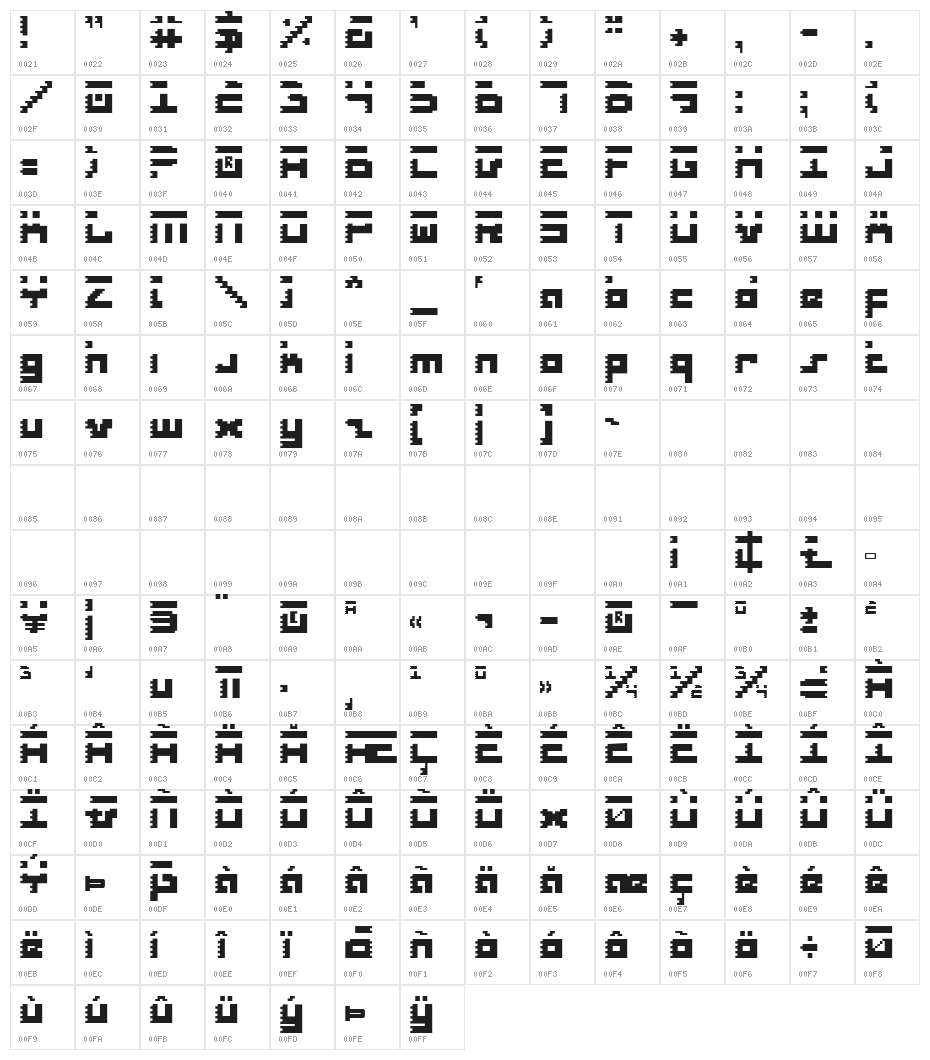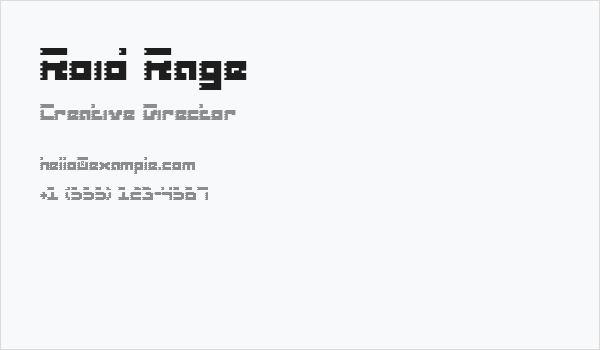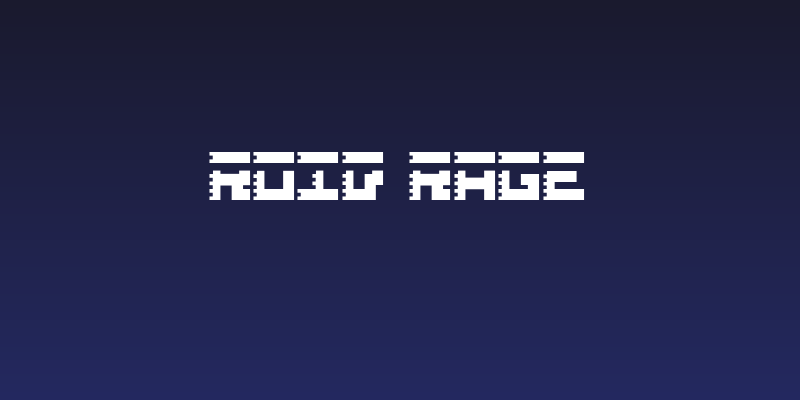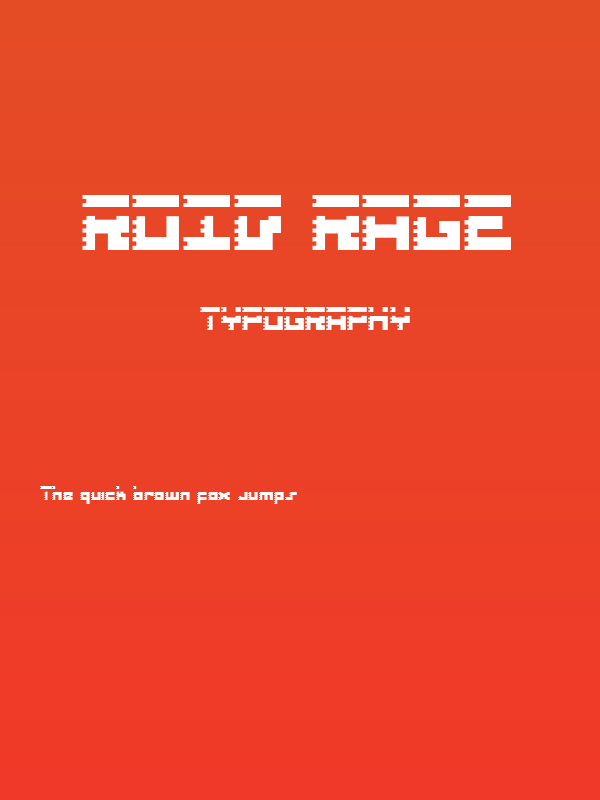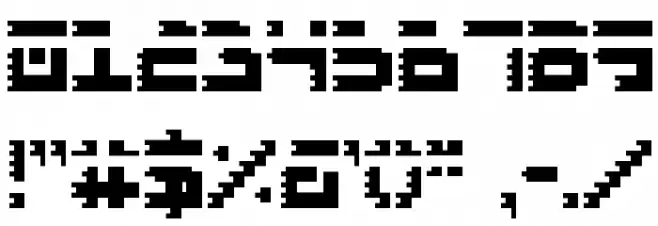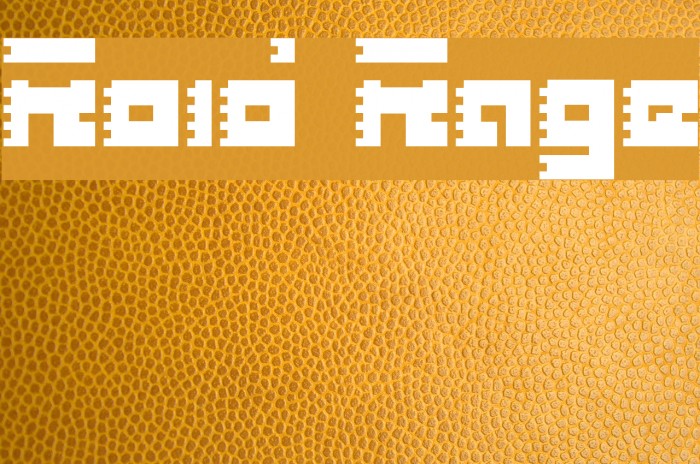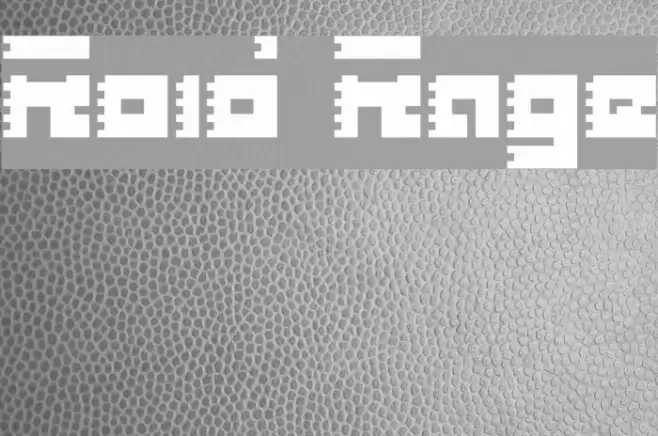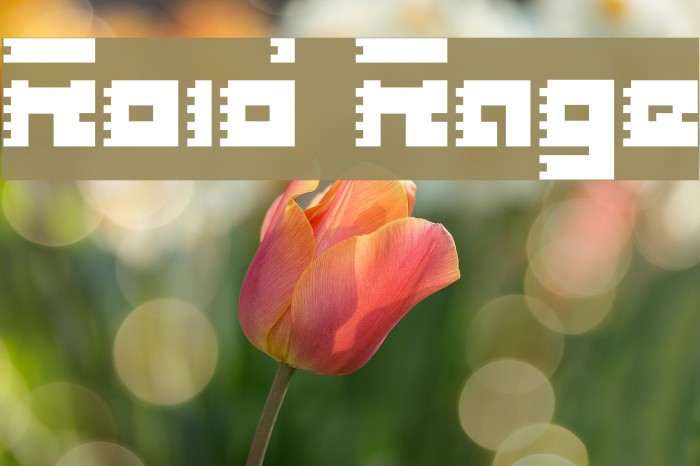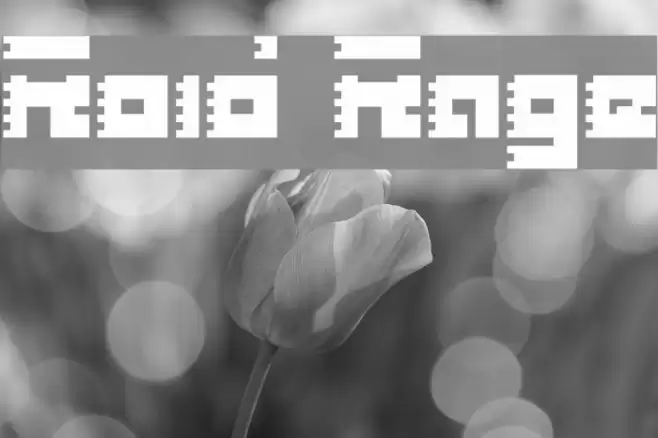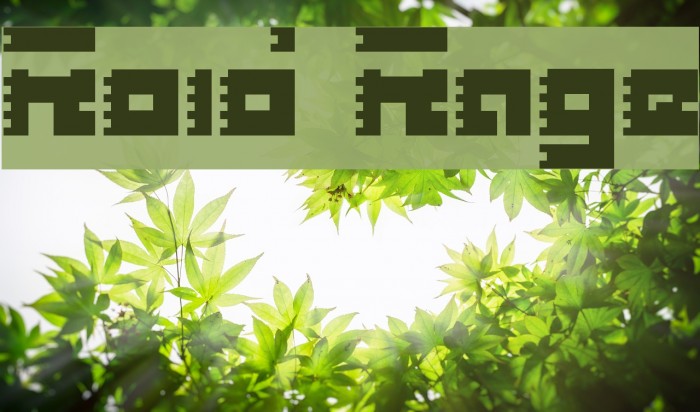
Roid Rage Font
✎ Pixel
| カテゴリ | Pixel |
| 全体的なスタイル | Retro, Digital |
| おすすめプロジェクト | Ideal for video game designs, tech-themed posters, retro branding, and digital art projects. |